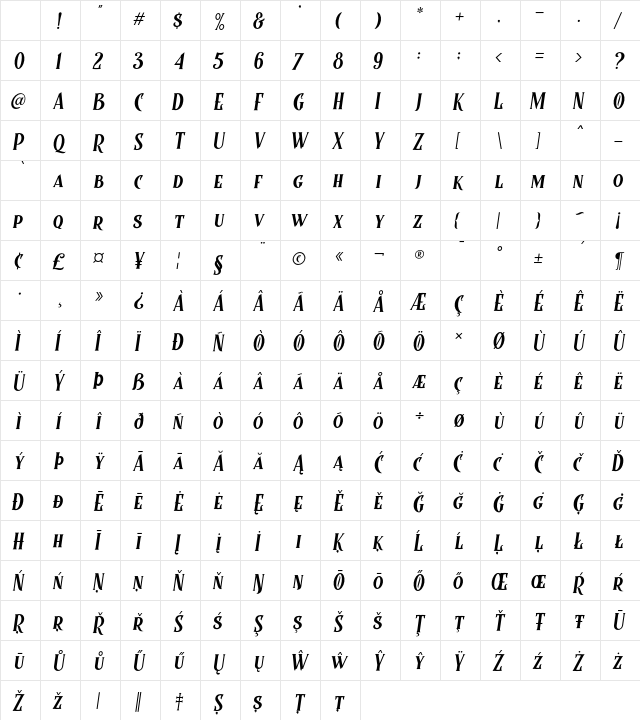
Controwell is a composed and adaptable typeface that performs quietly and consistently across a wide range of design contexts. The slanted form adds forward momentum and visual energy.
Pro Tip: Use Controwell for emphasis, pull quotes, and subheadings where its slanted energy can add rhythm to the layout.